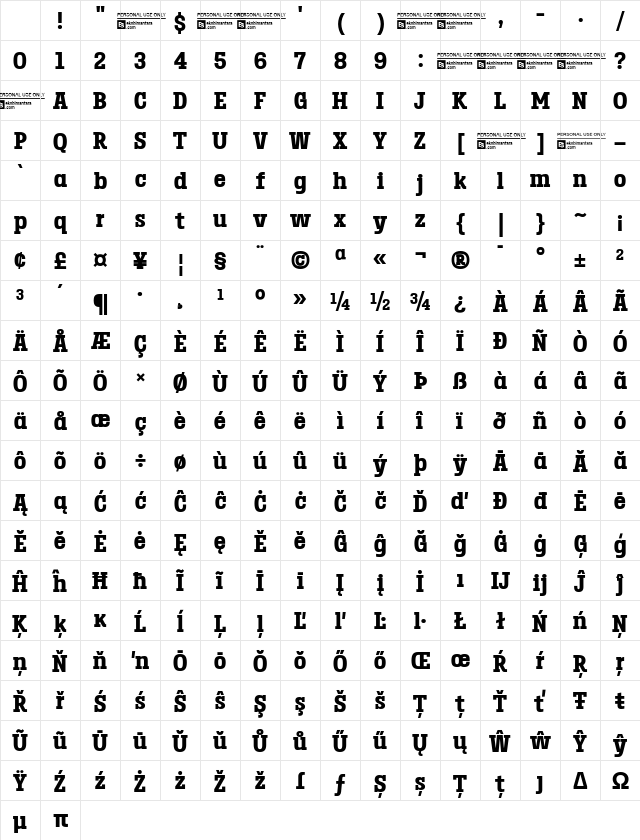
Birdwood Trial Black echoes the hand-painted signage and woodblock typography of the American frontier, with a warm, rugged personality.
Font Pairing: Combine Birdwood Trial Black with a simple slab or neutral sans - period-accurate companions reinforce the vintage feel without competing for attention.
Pro Tip: Use Birdwood Trial Black for short, impactful bursts of text - it shines in poster headlines and product names rather than extended copy.